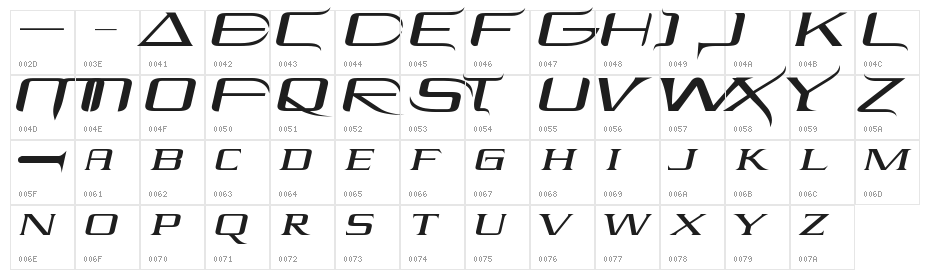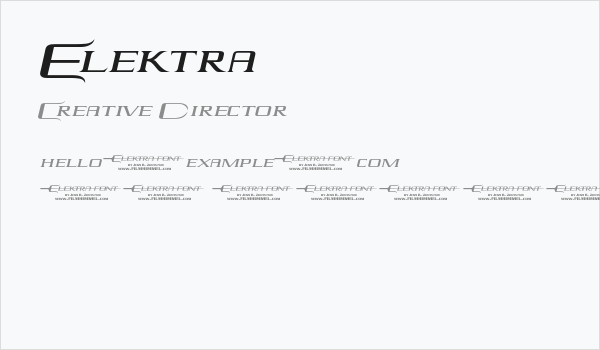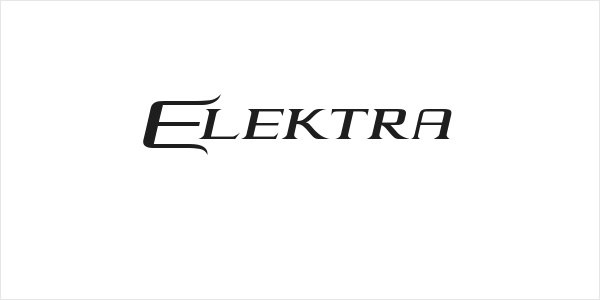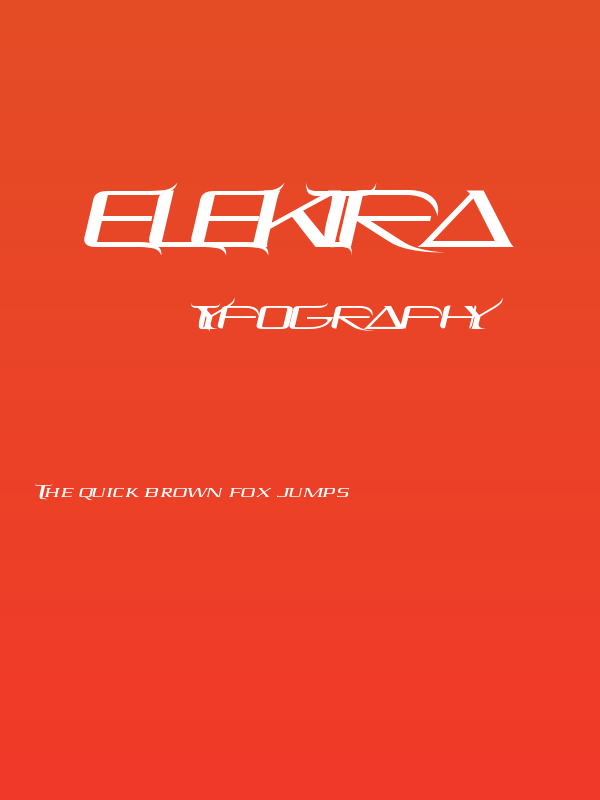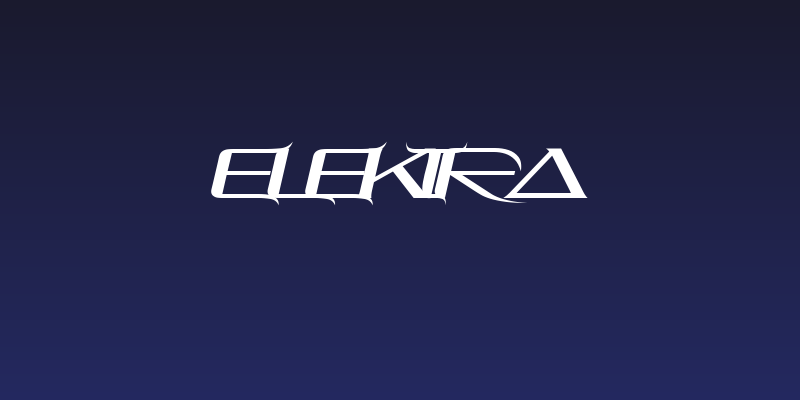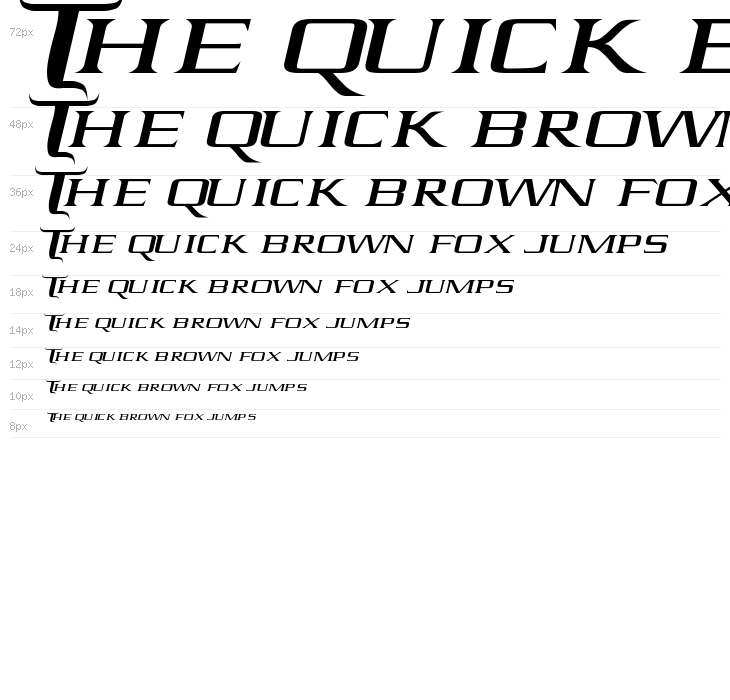
Elektra Font
Elektra Description
This font features a dynamic and edgy design with sharp, angular strokes and a futuristic aesthetic. The uppercase letters are bold and striking, with unique cuts and extensions that give them a sense of movement and energy. The lowercase letters maintain a consistent style, complementing the uppercase with a slightly more streamlined appearance. The numerals are distinct and easily readable, while the special characters echo the font's overall sharp and modern look. This font is perfect for projects that require a bold and impactful visual statement.
| Overall Style | Futuristic, Edgy |
| Proposed Projects | Ideal for sci-fi movie posters, video game titles, tech branding, and edgy graphic designs. |